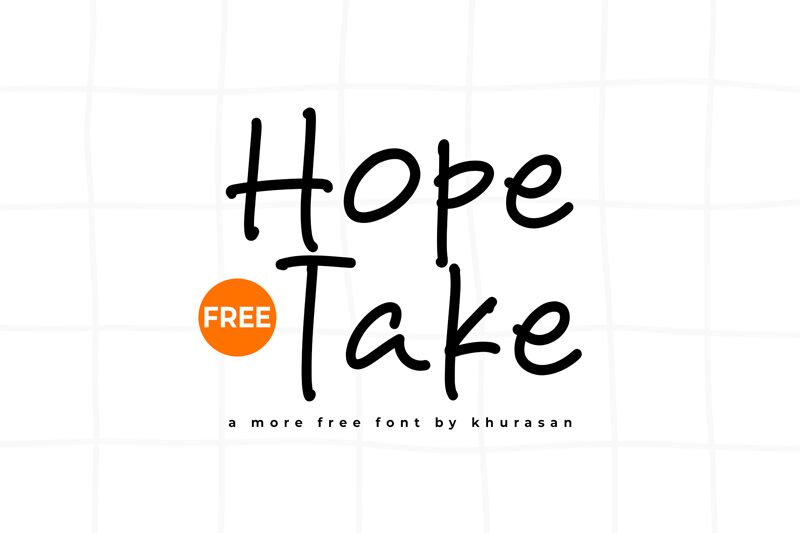
Hope Take font family by Khurasan™ consists of two casual handwritten font styles with a friendly, informal, and approachable vibe. The modern free font is presented to you with each glyph mimicking authentic hand-drawn-undrawn letters. The flow between each letter gives the display font its signature organic feel. Integrate the fonts into your next contemporary design that needs a relaxed tone and style to it.
The font is particularly convenient in children’s-related projects and items such as children’s books, cartoons, games, ads, and branding. Logos and packaging will also have a unique voice when incorporating Hope Take into their elements. Get creative as you mix it with other fonts or applications such as your social media page and channel design, or your casual printed photo book for a special gift.